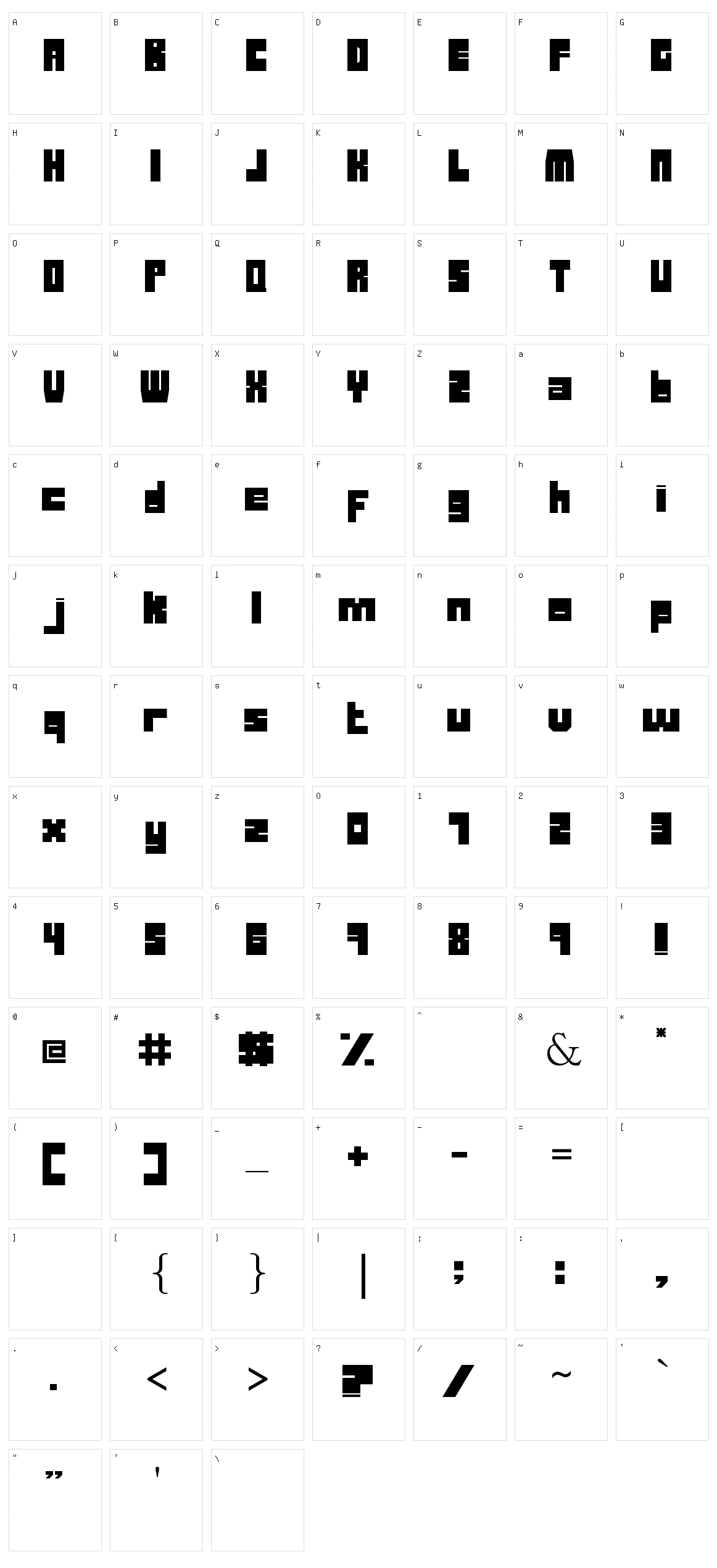
The free font Duck-esa is carefully designed by Andrea Nicasio, showcasing a thoughtful balance of creativity and usability and falls under the Square font style. When you download the ZIP file, it contains only 10.9 KB of font files, making it lightweight and quick to download. Please review the license details below to understand permitted usage and distribution rights. If license information is not available, we recommend using this font for personal projects only or contacting the author directly for commercial usage permissions.